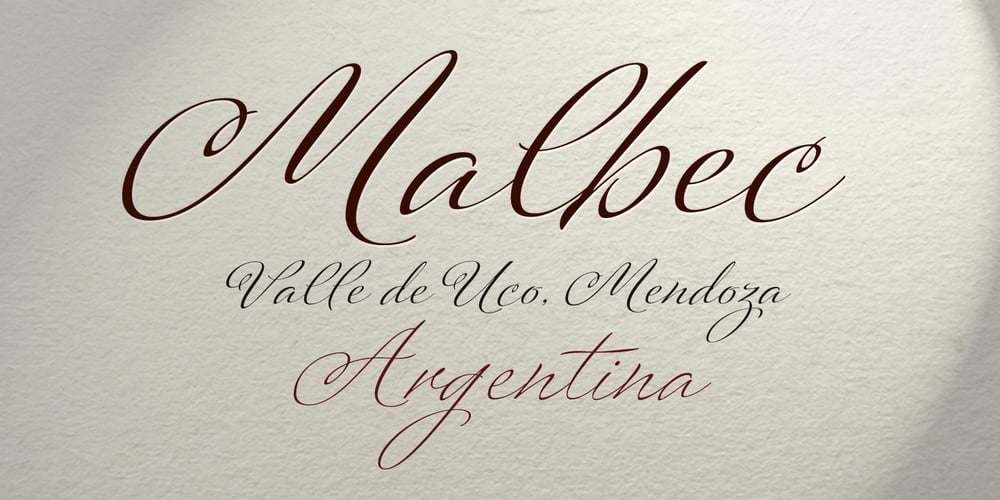
Platinus Script Pro Font Family was designed by Alejandro Paul, Angel Koziupa and published by Sudtipos. Platinus Script Pro contains 2 styles and family package options. Platinus Script Pro is the latest example of what has now become a Sudtipos tradition: Adapting conventional calligraphic methods from the last two centuries to produce modern digital scripts for the current one. This time the resulting font explores the evolution of invitation scripts from the classic commercial lettering of the 1930s to the ideas clearly visible in the greeting cards of the 1980s and 1990s. Most base characters are made up of a single stroke, with some of the strokes driven from the top down, and some from the bottom up, putting the emphasis on the casual but precise fluidity of the hand, an emphasis magnified by the expert use of loops and swashes everywhere. The Platinus Script Pro family comes in two weights, each loaded with alternates and Latin-based langauge support, for more than 570 characters per font. Platinus Script Pro is great for product packaging, as well book covers, menus and greeting cards.